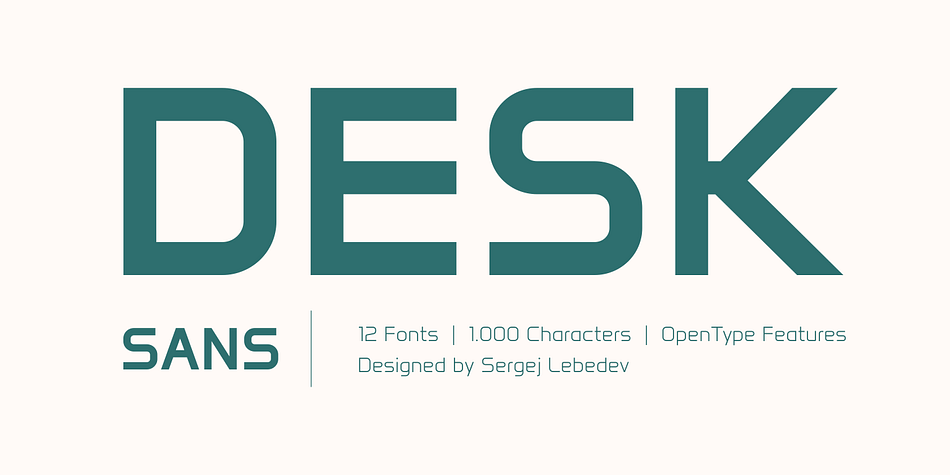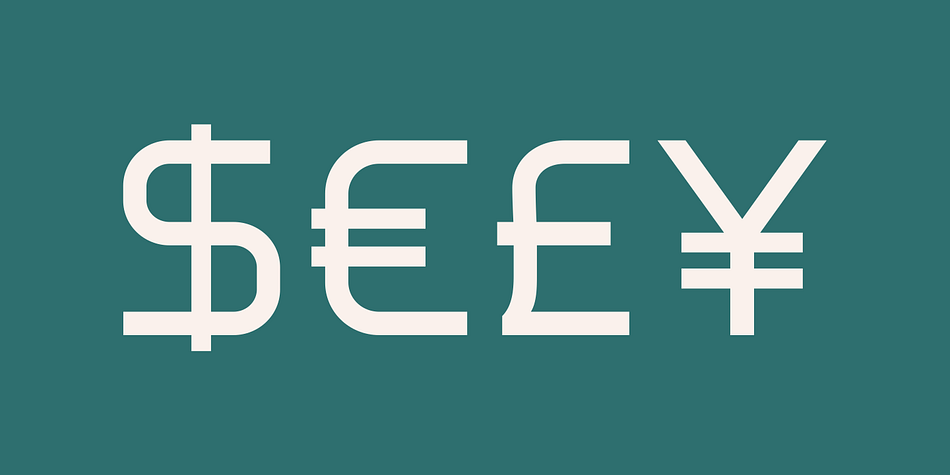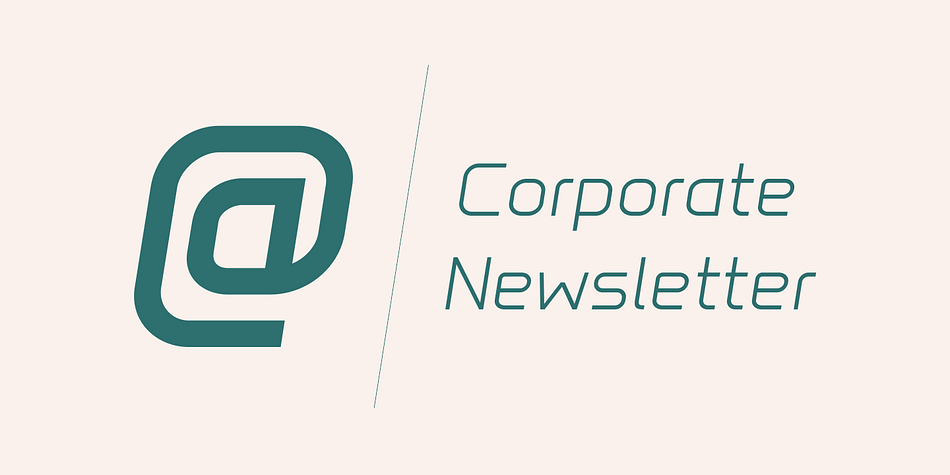
Desk Sans is a sans serif font family. This typeface has twelve styles and was published by Sergej Lebedev.
Desk Sans, a modern technical font family, is intelligently designed and engineered to ensure readability at any size, on any screen. Desk Sans has a modern, innovative look and many Open Type Features. The design language of Desk Sans is straight-forward in overall structure, concise and rational in details. This font family include 12 fonts. Each Desk Sans font has 1.000 characters and supports at least 33 languages.